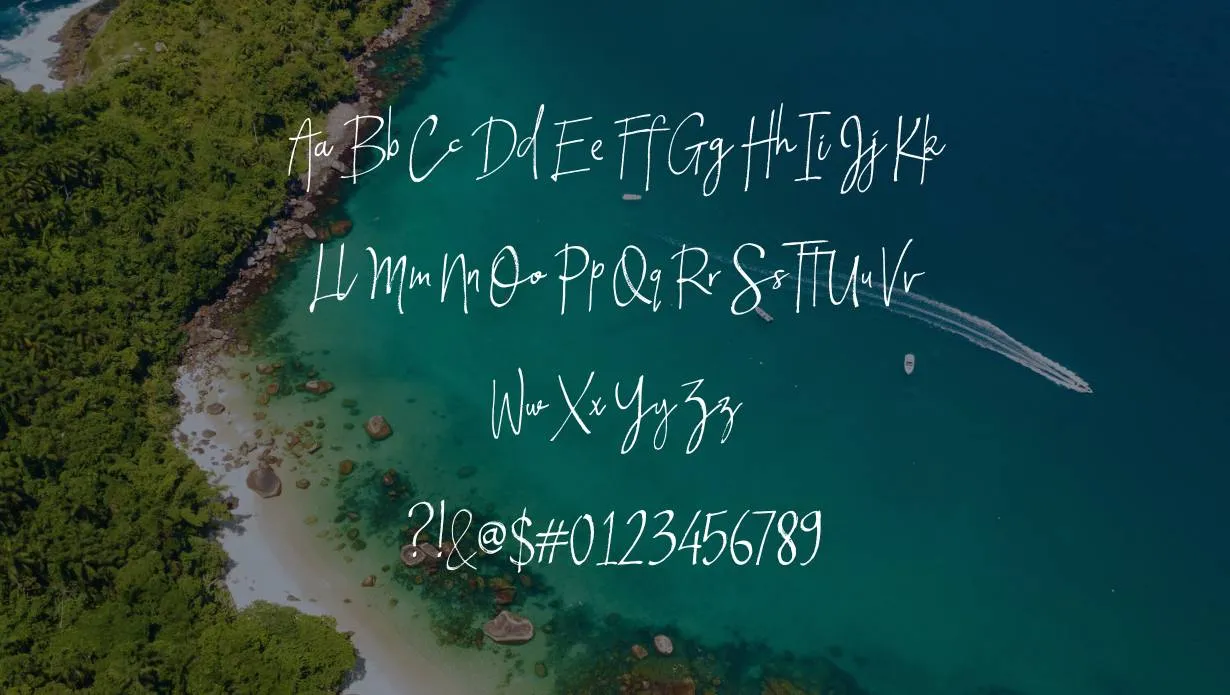
North Island Font draws inspiration from classic typography and is commonly utilized in projects that evoke nostalgia and retro design.
It adds a touch of the past and a sense of vintage charm to your designs.
North Island Font Family
| Name | North Island Font |
| Designer | Zerowork Studio |